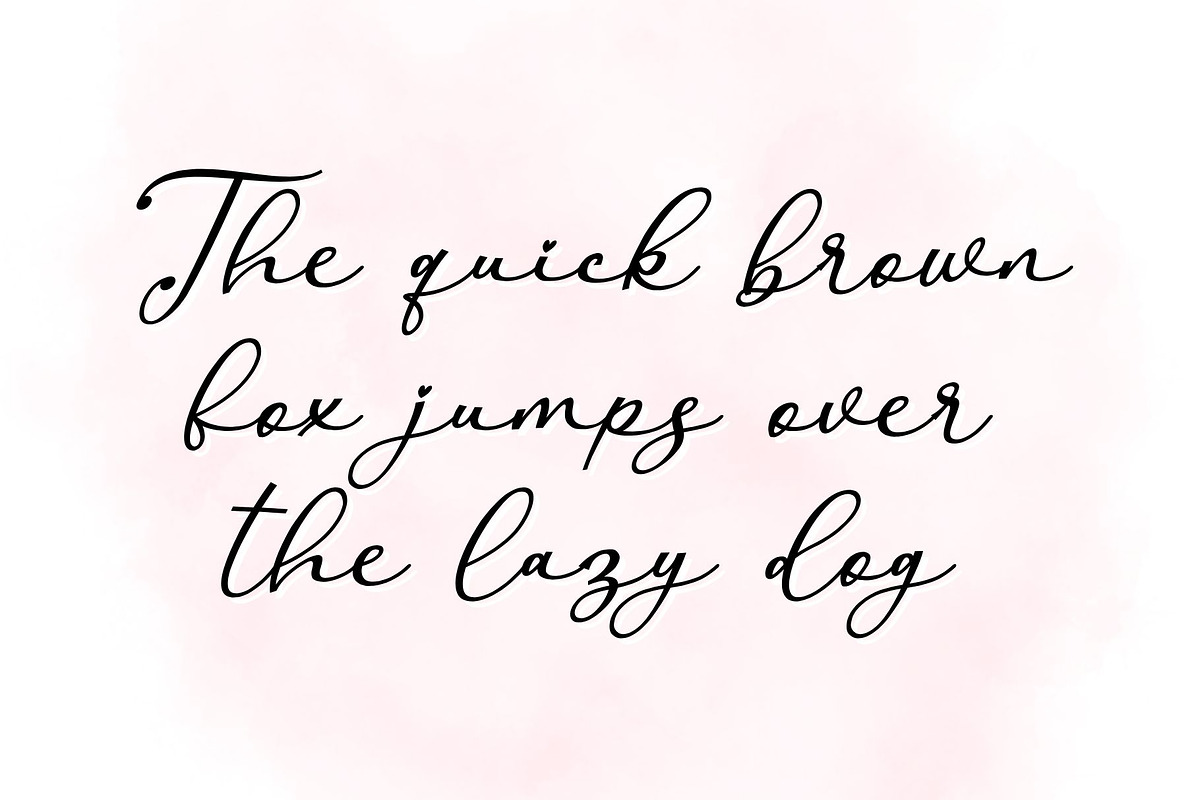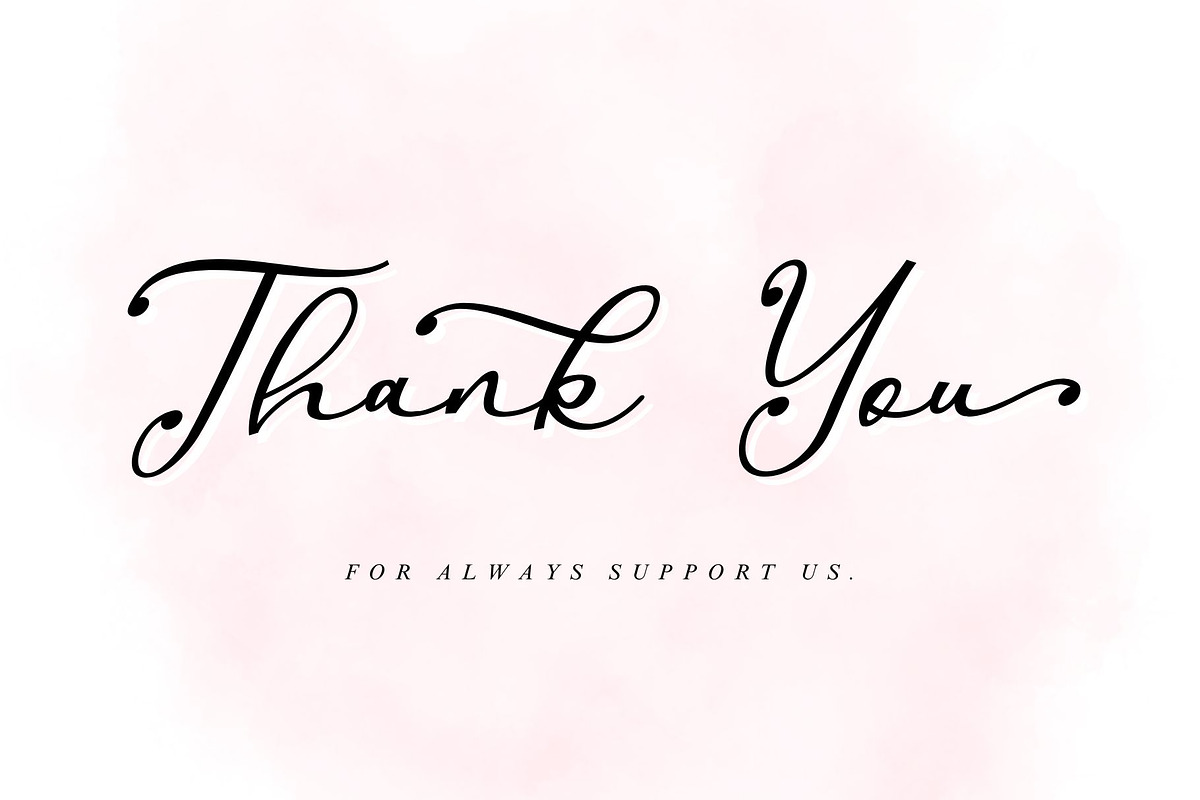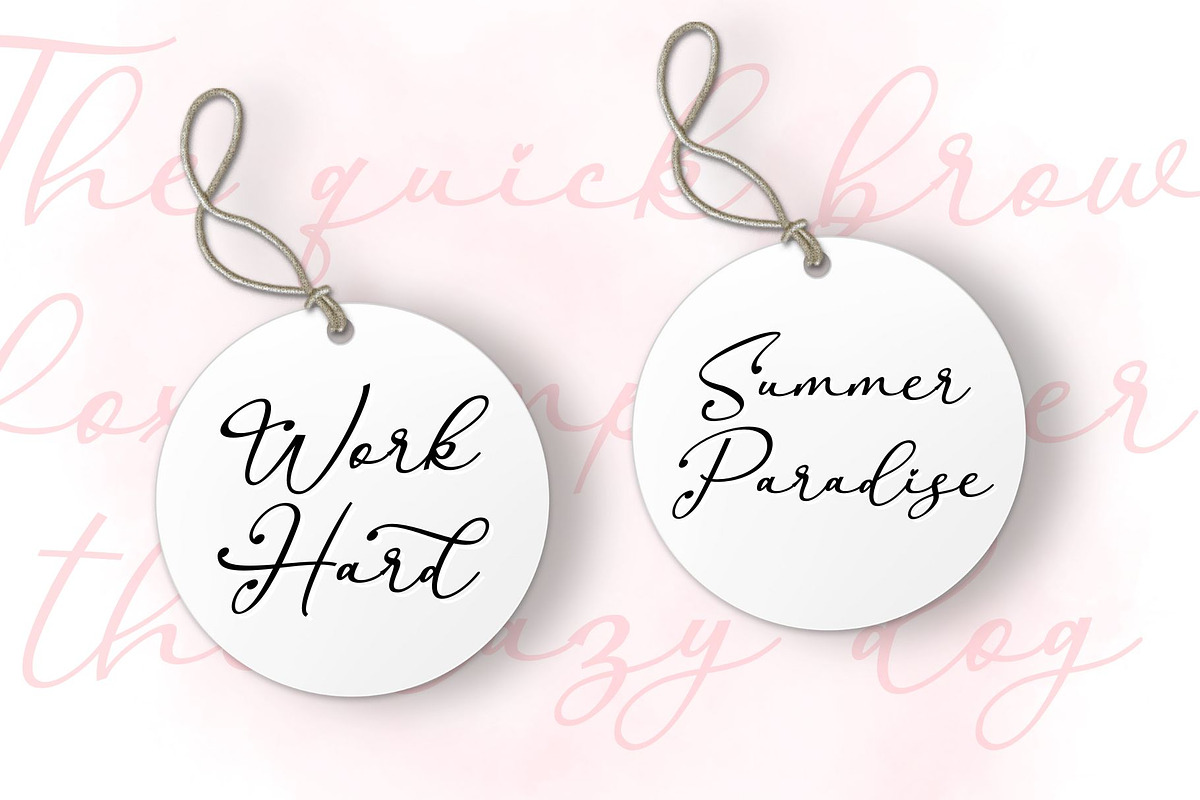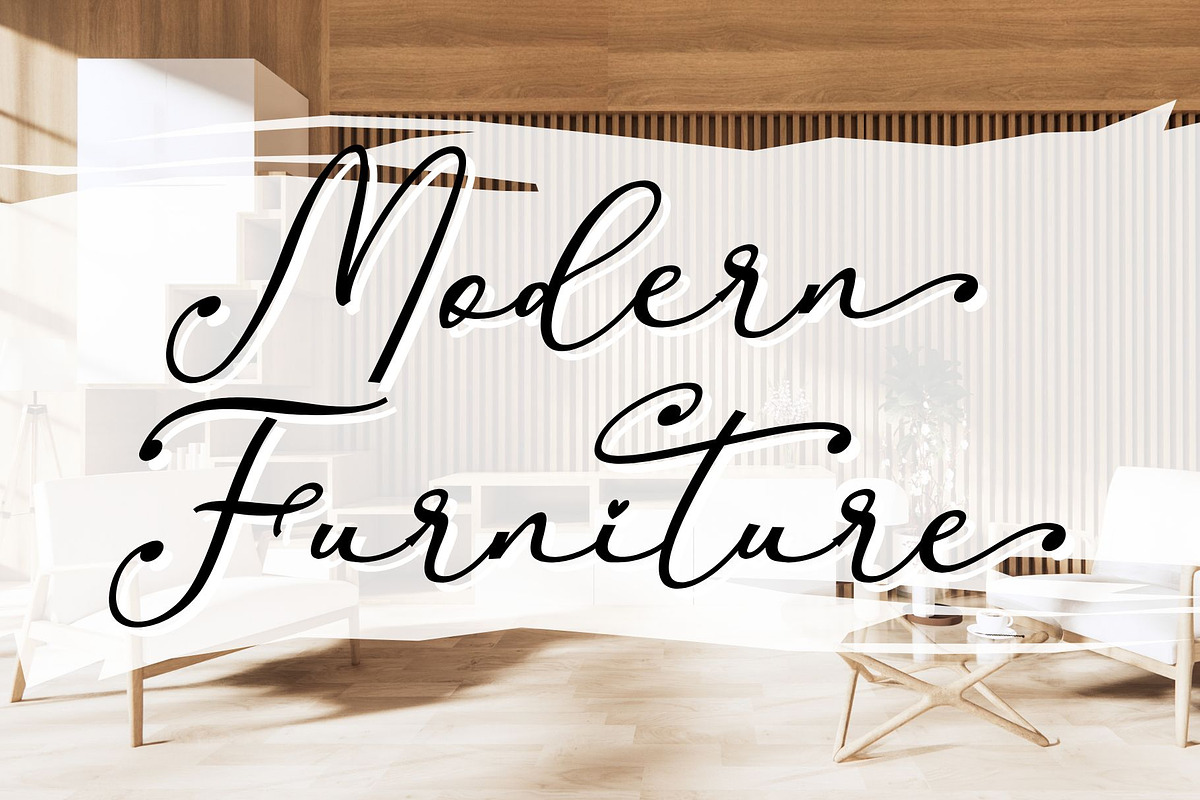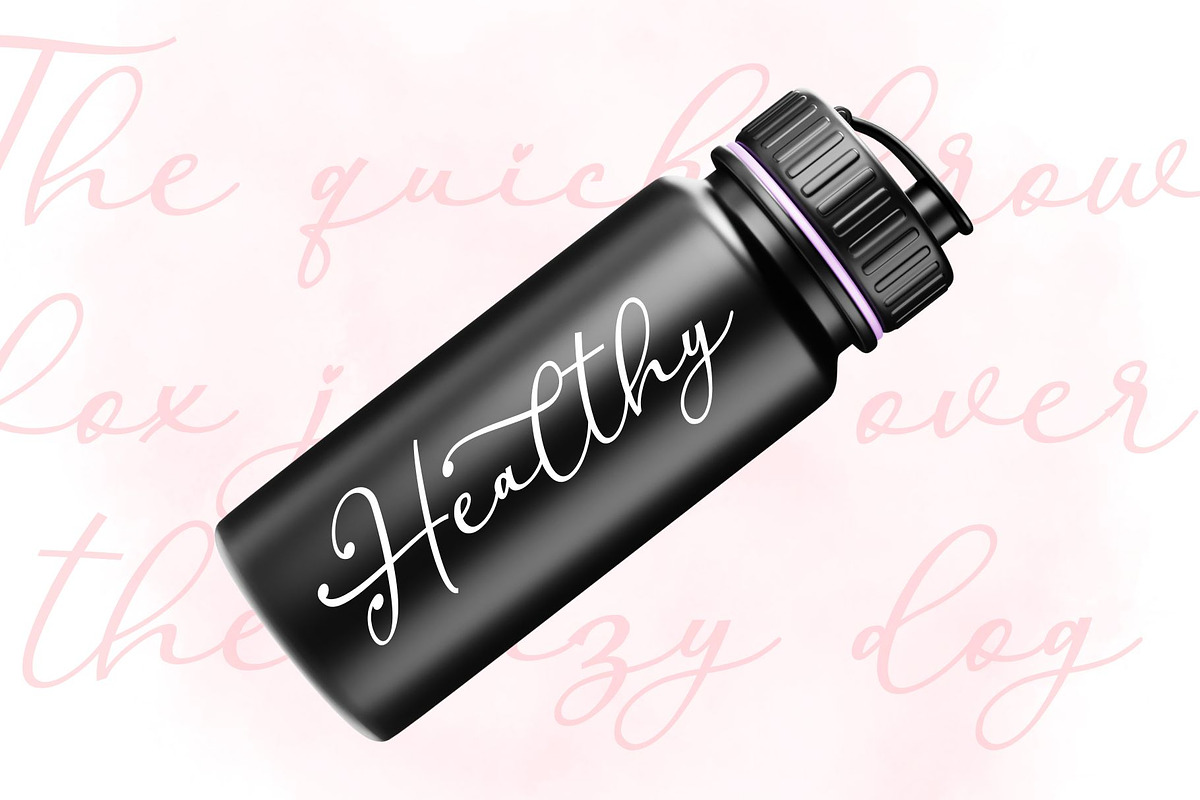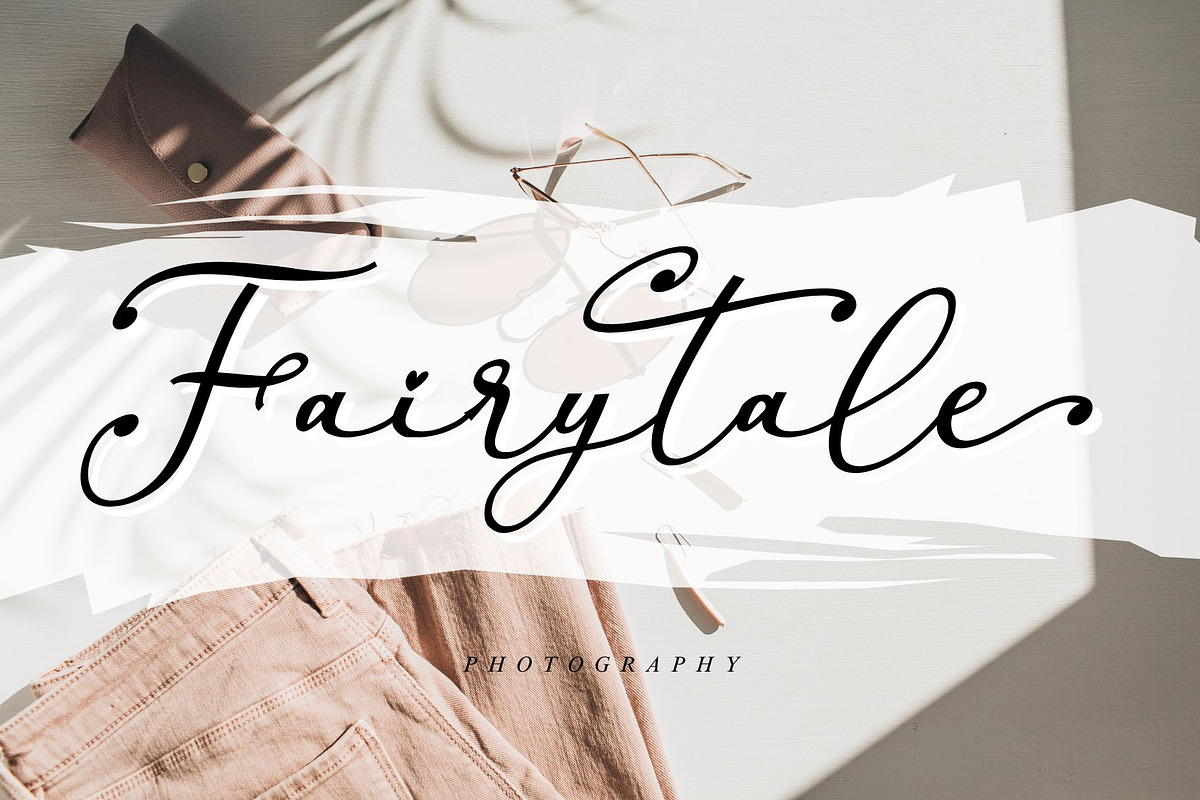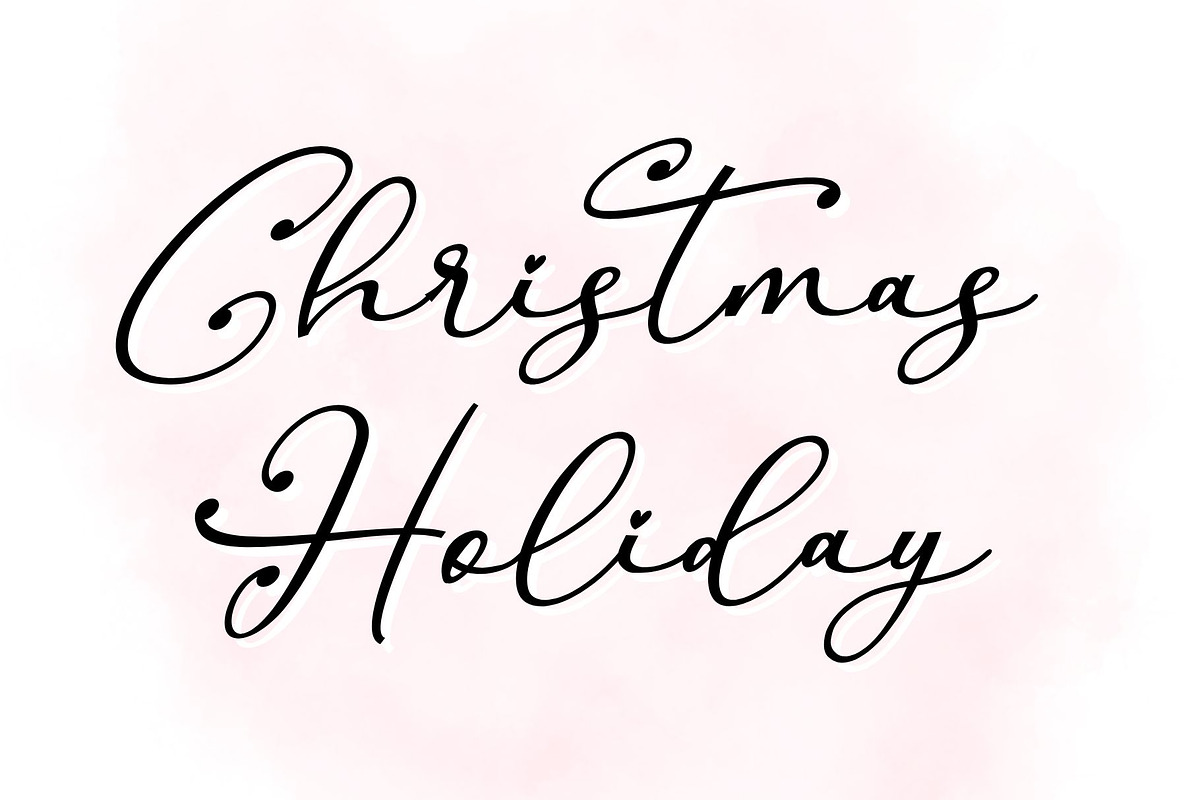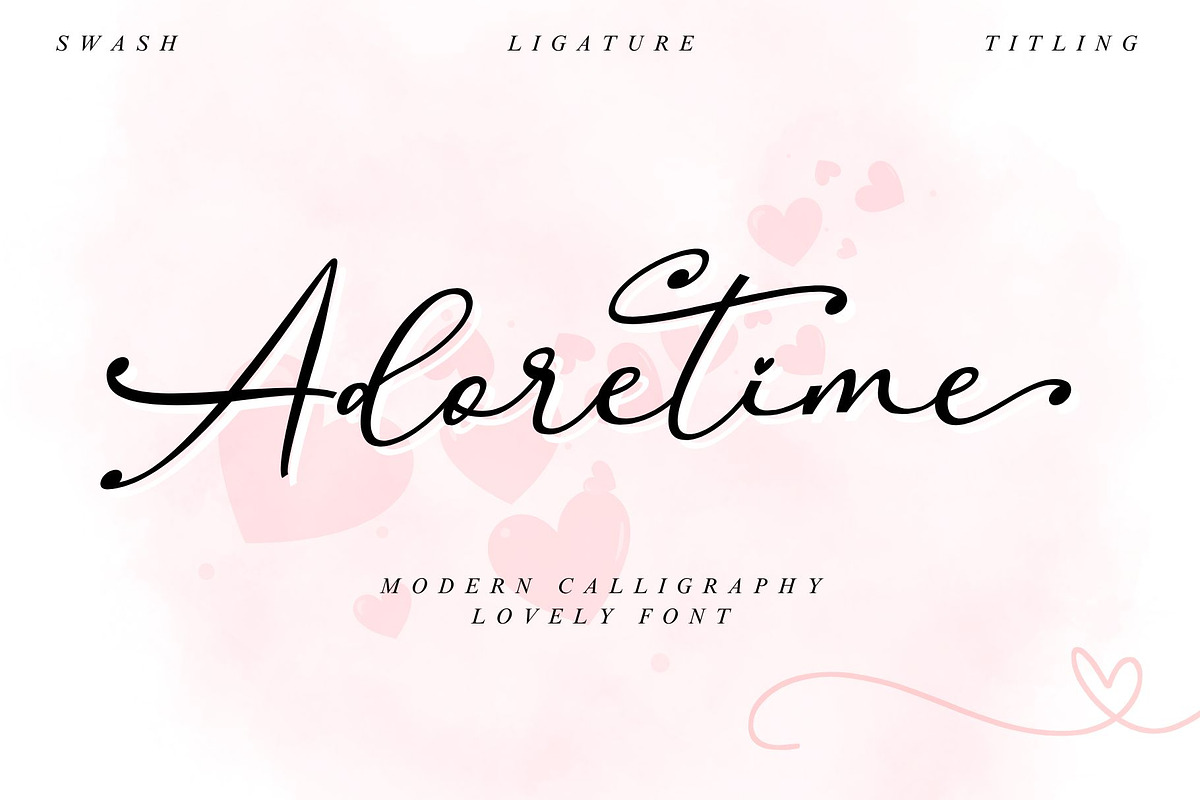
Adoretime
"Adoretime," a captivating handwritten font, dazzles with its distinctive style. Its charming allure makes it a versatile choice, seamlessly catering to a broad spectrum of design requirements. Its aesthetic appeal resides in its unique blend of simplicity and elegance, truly encapsulating the essence of handwritten finesse. Brighten up your designs with the unmatchable charm of "Adoretime."